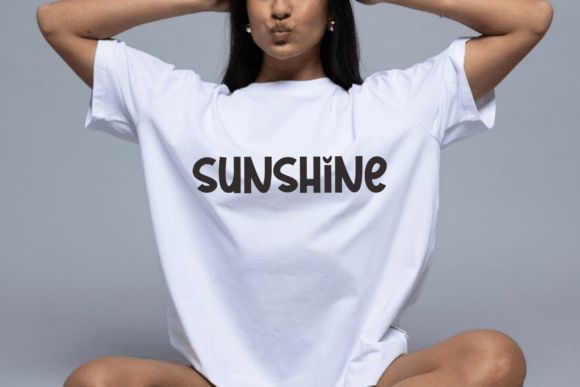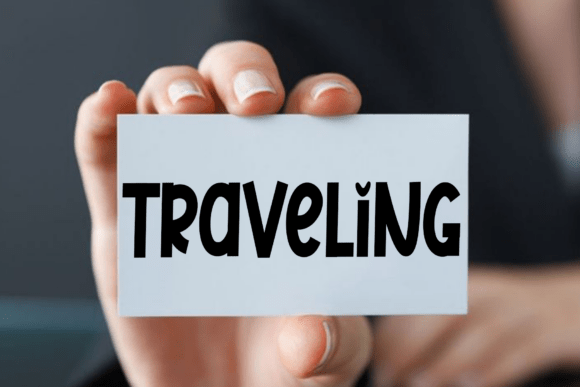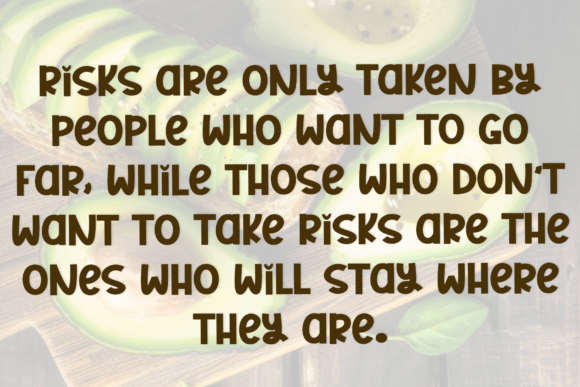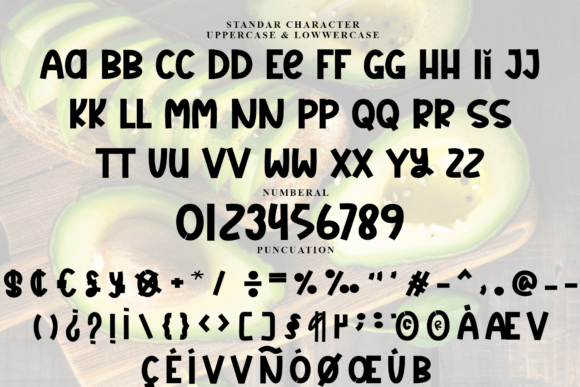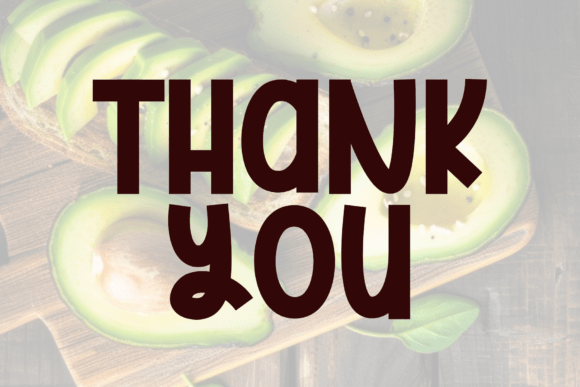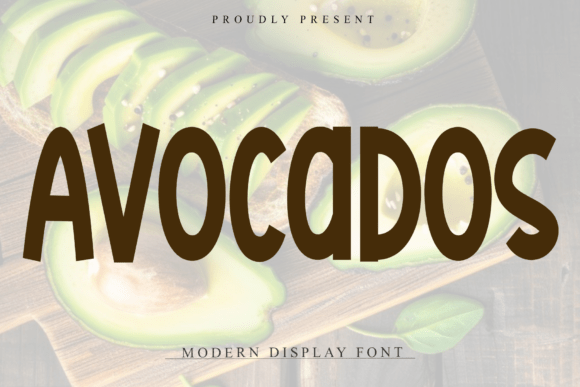
Introducing Avocados Font: The Perfect Blend of Organic Charm and Typographic Sophistication
Are you a designer or crafter looking for a font that embodies the perfect balance of organic charm and typographic sophistication? Look no further than Avocados Font. This stylish handwritten font is designed to blend the best of both worlds, offering a unique and professional look that’s perfect for a wide range of design applications.
The Characteristics of Avocados Font
Avocados Font features thick, solid strokes with a distinct “bouncy” rhythm that gives it a friendly and approachable character. This font is the epitome of a handwritten typeface, with a natural flow that’s reminiscent of pen and paper. The strokes are bold and expressive, with a subtle irregularity that adds to its organic charm.
One of the standout features of Avocados Font is its well-balanced proportions. Even in busy designs, this font remains impactful and easy to read, making it perfect for use in a variety of applications. Whether you’re designing a logo, creating a brochure, or crafting a social media post, Avocados Font is sure to make a statement.
The Perfect Font for Outdoor Lifestyle Branding and More
Avocados Font is part of the “Unique and Professional” collection, and it’s perfect for designers and crafters who want to add a touch of organic sophistication to their work. This font is ideal for outdoor lifestyle branding, organic product packaging, travel-themed graphics, and rustic event invitations.
Imagine using Avocados Font to create a logo for a hiking gear company or a label for a line of artisanal foods. The font’s natural, earthy feel would be a perfect fit for these types of brands, evoking a sense of adventure and authenticity. Similarly, Avocados Font would be a great choice for travel-themed graphics, such as brochures or posters, where a sense of excitement and exploration is key.
Rustic yet Refined: The Smart and Adventurous Look of Avocados Font
Avocados Font is more than just a rustic, handwritten typeface. It’s also surprisingly versatile, and can be used to create a wide range of designs that are both smart and adventurous. Whether you’re designing a wedding invitation or a business card, this font is sure to add a touch of personality and whimsy to your work.
One of the things that sets Avocados Font apart from other handwritten fonts is its ability to balance rustic charm with typographic sophistication. This font is perfect for designers and crafters who want to create designs that are both earthy and elegant, with a sense of handmade charm that’s hard to find in more traditional typefaces.
Why Choose Avocados Font?
So why choose Avocados Font for your next design project? Here are just a few reasons why this font stands out from the crowd:
- Unique and Professional: Avocados Font is part of the “Unique and Professional” collection, making it perfect for designers and crafters who want to add a touch of sophistication to their work.
- Organic Charm: With its thick, solid strokes and natural flow, Avocados Font has a distinct organic charm that’s perfect for outdoor lifestyle branding, organic product packaging, and more.
- Versatile: Avocados Font is surprisingly versatile, and can be used to create a wide range of designs that are both smart and adventurous.
- Easy to Read: Despite its bold and expressive strokes, Avocados Font remains easy to read, even in busy designs.
Avocados Font is a stylish handwritten font that blends organic charm with typographic sophistication. With its thick, solid strokes and natural flow, this font is perfect for designers and crafters who want to add a touch of personality and whimsy to their work. Whether you’re designing a logo, creating a brochure, or crafting a social media post, Avocados Font is sure to make a statement. So why not give it a try and see the difference it can make in your next design project?